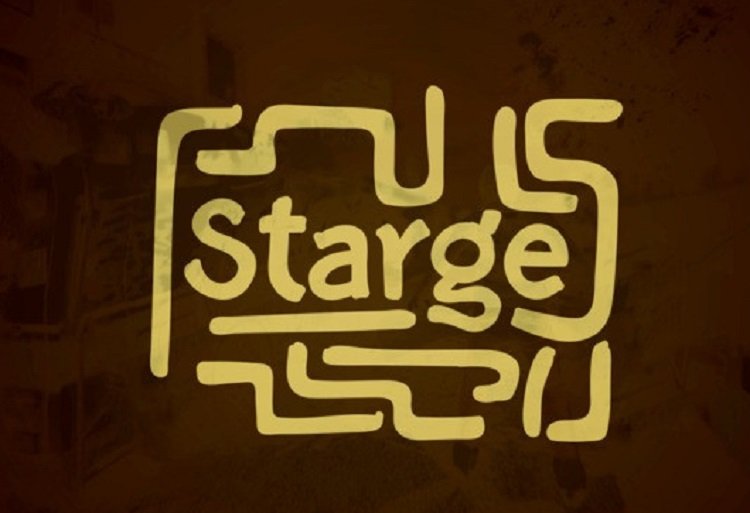
Starge Font
Starge Font is a professional hand-drawn sans typeface. It works perfectly for a crafty project where a functional font is required.
The font supports all Latin-based European languages, contains numbers and all symbols you’ll ever need.